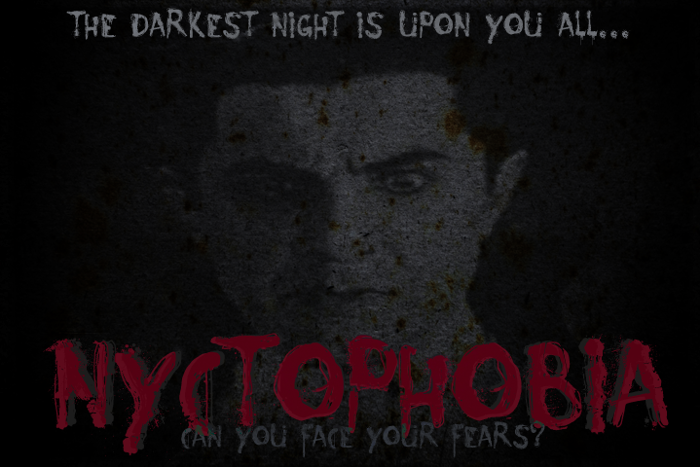
Nyctophobia Font
All most used glyphs and accents present, also for you Icelandic folk...
15 years agoWonderful font, perfect for the Halloween!
THIS FONT'S KINDA COOL. the baseline is staggered, the letters are narrow with some nice roundy round ones, and it's got the right amount of splatter.